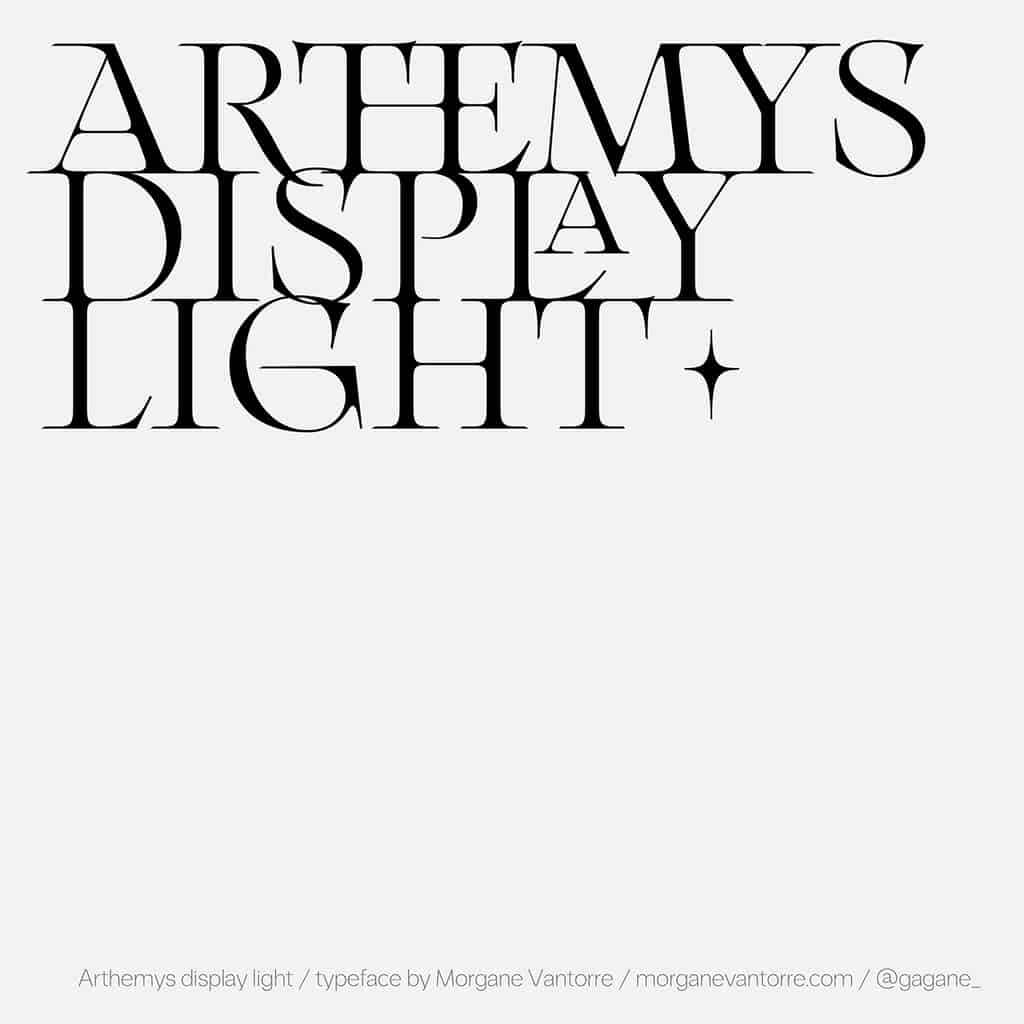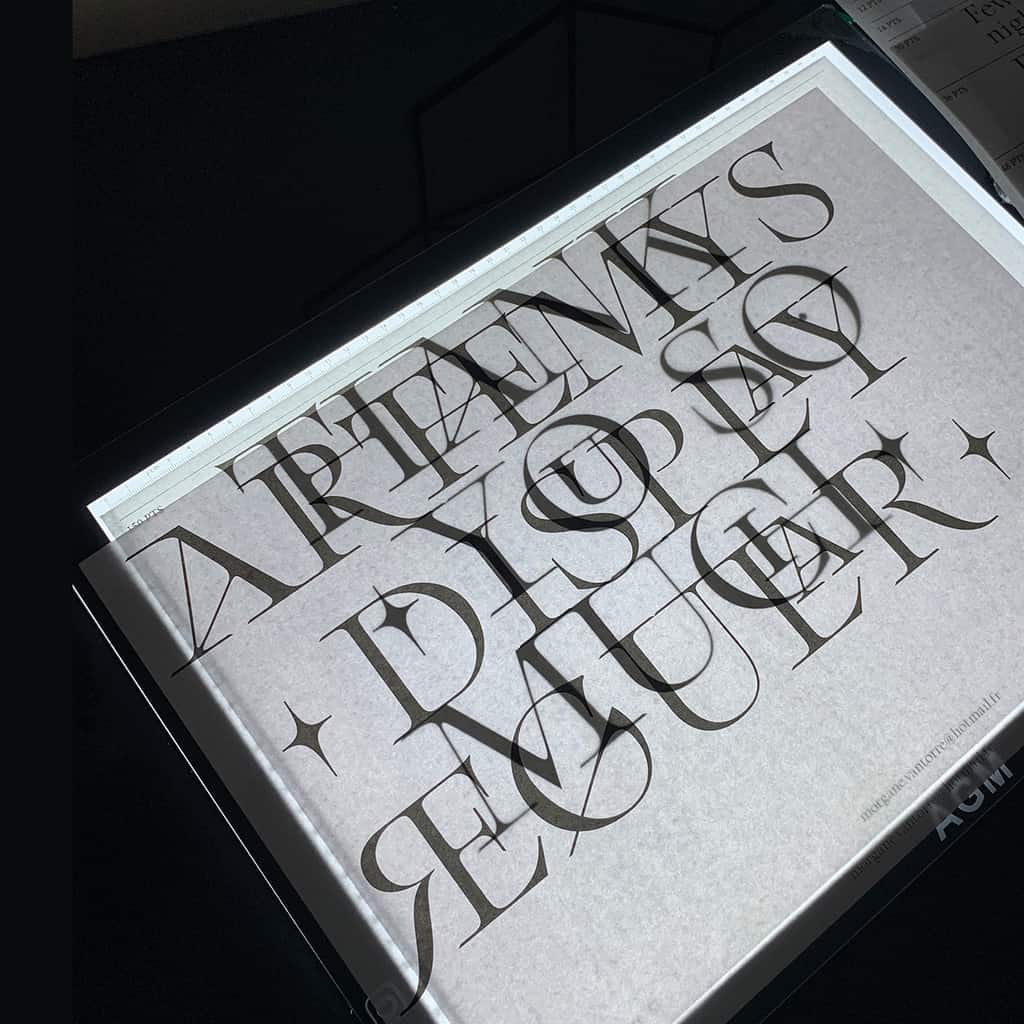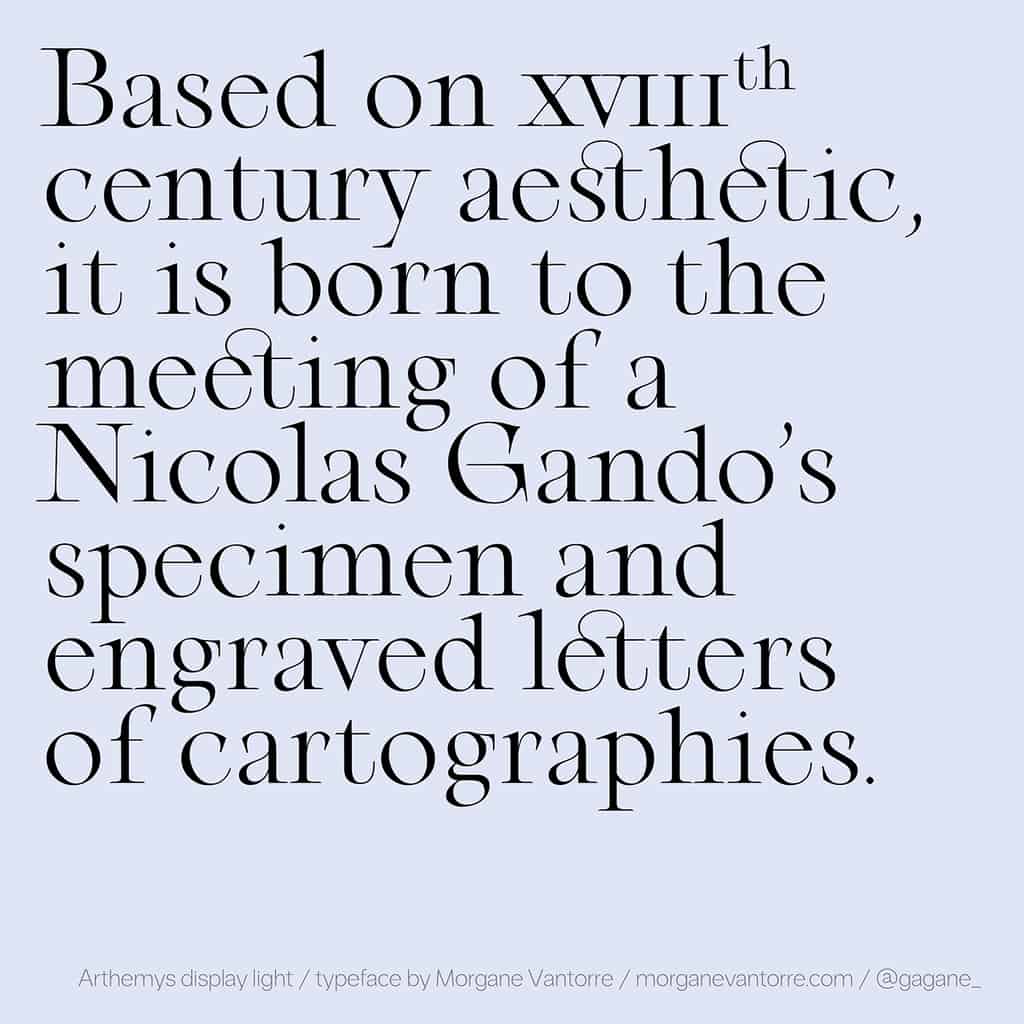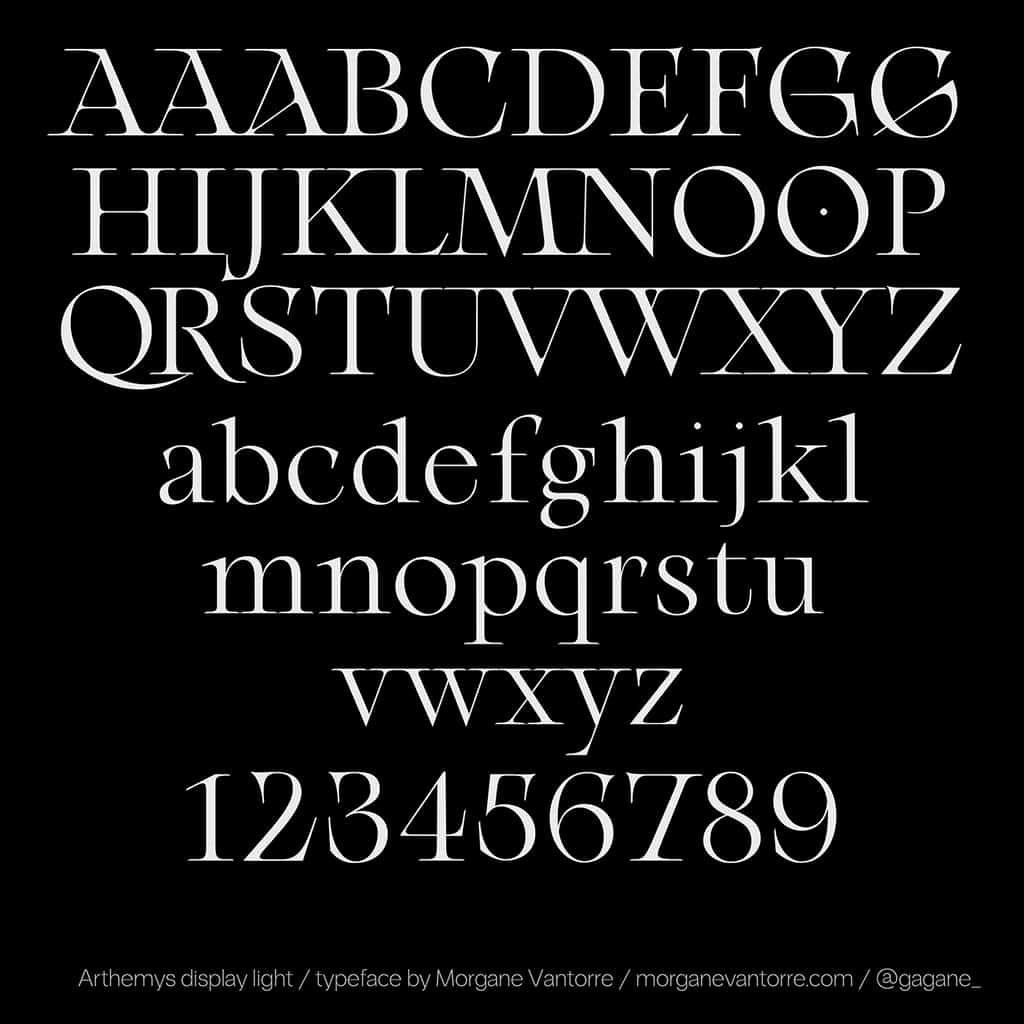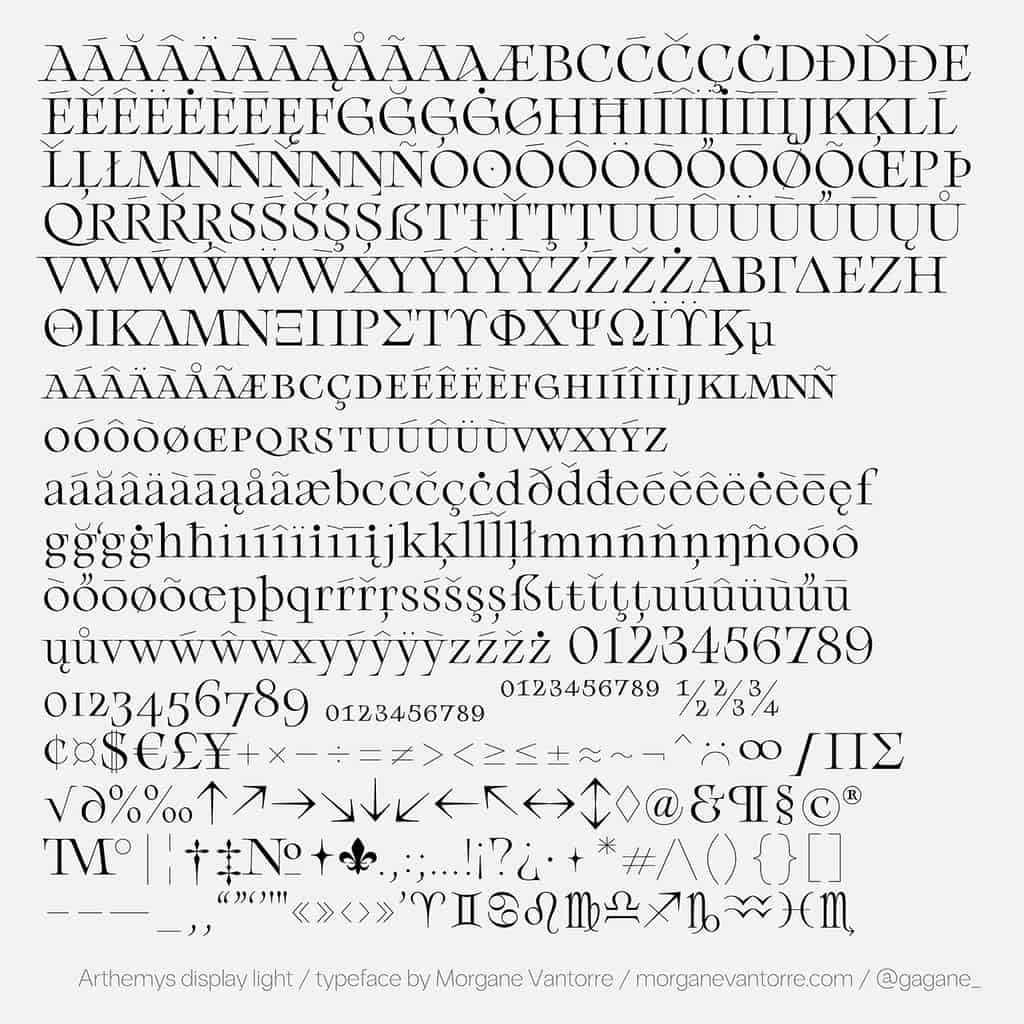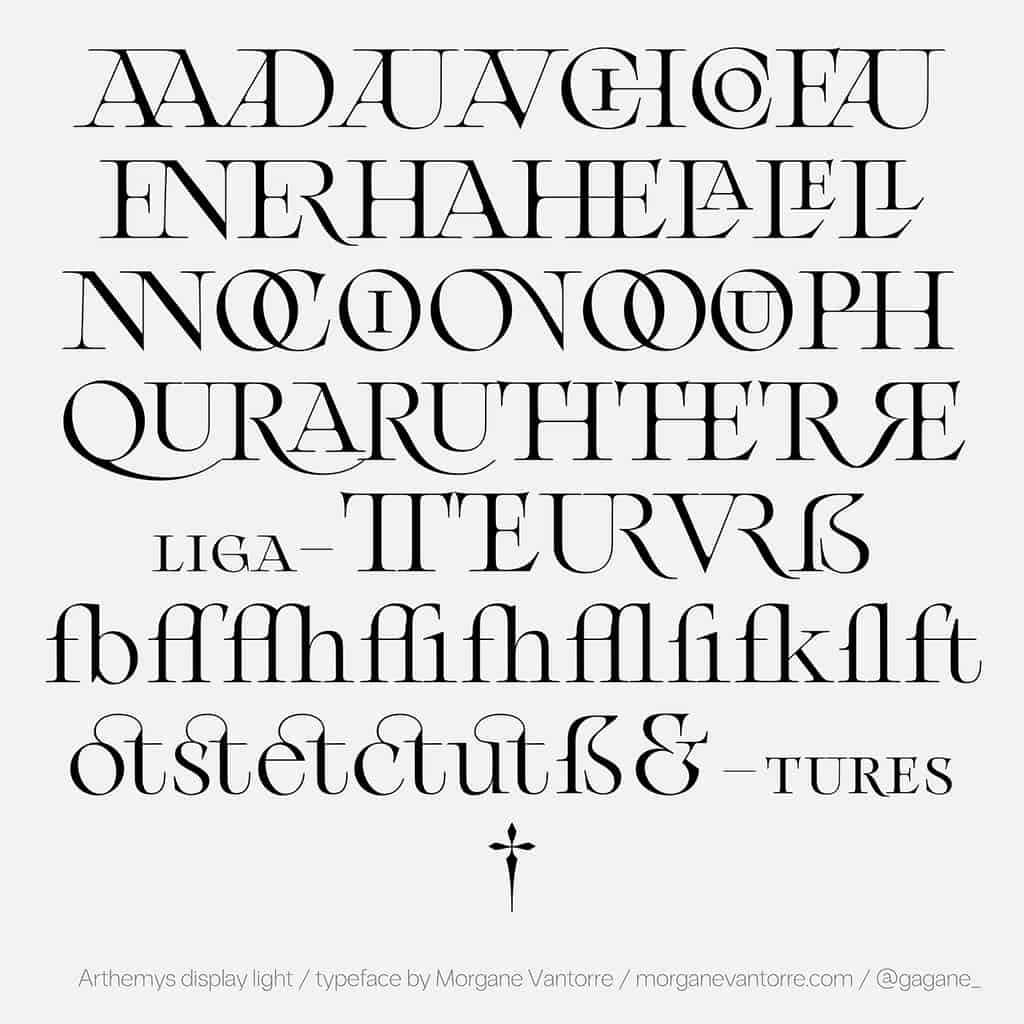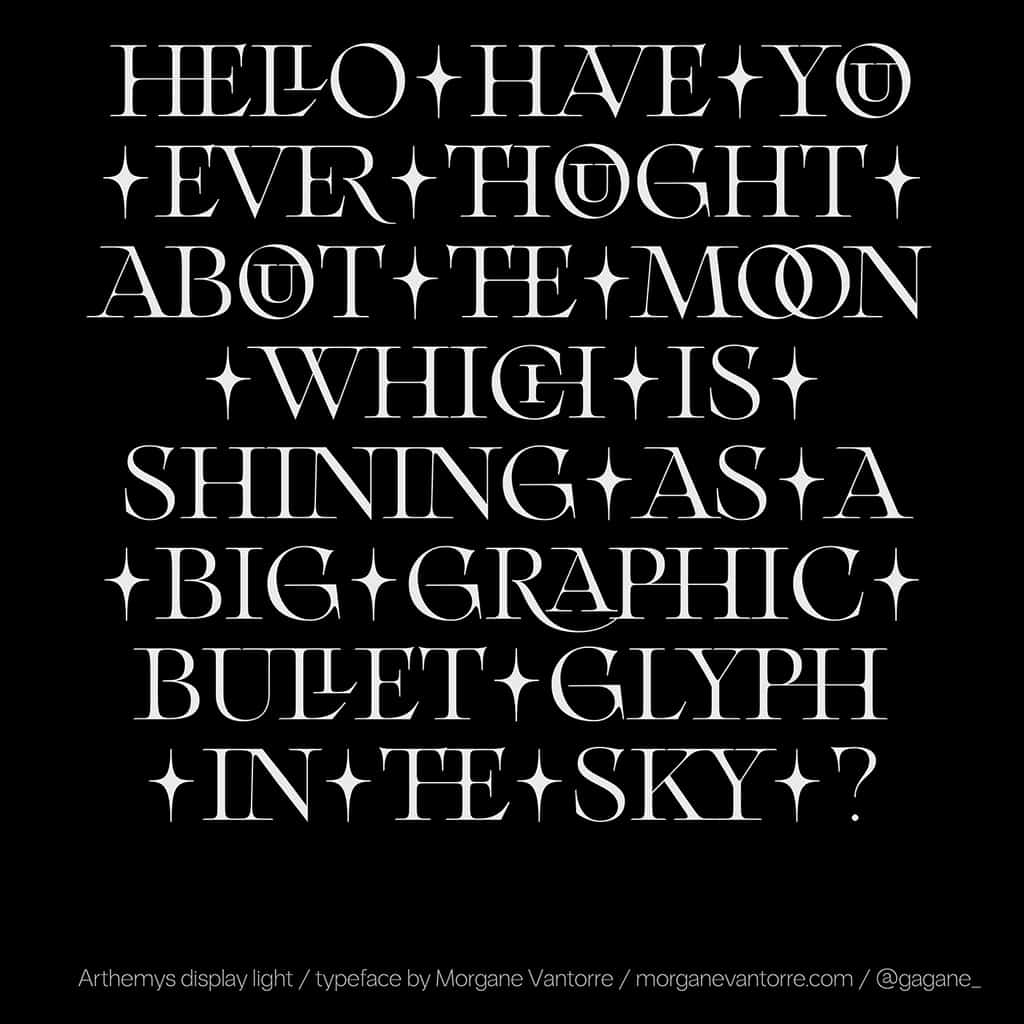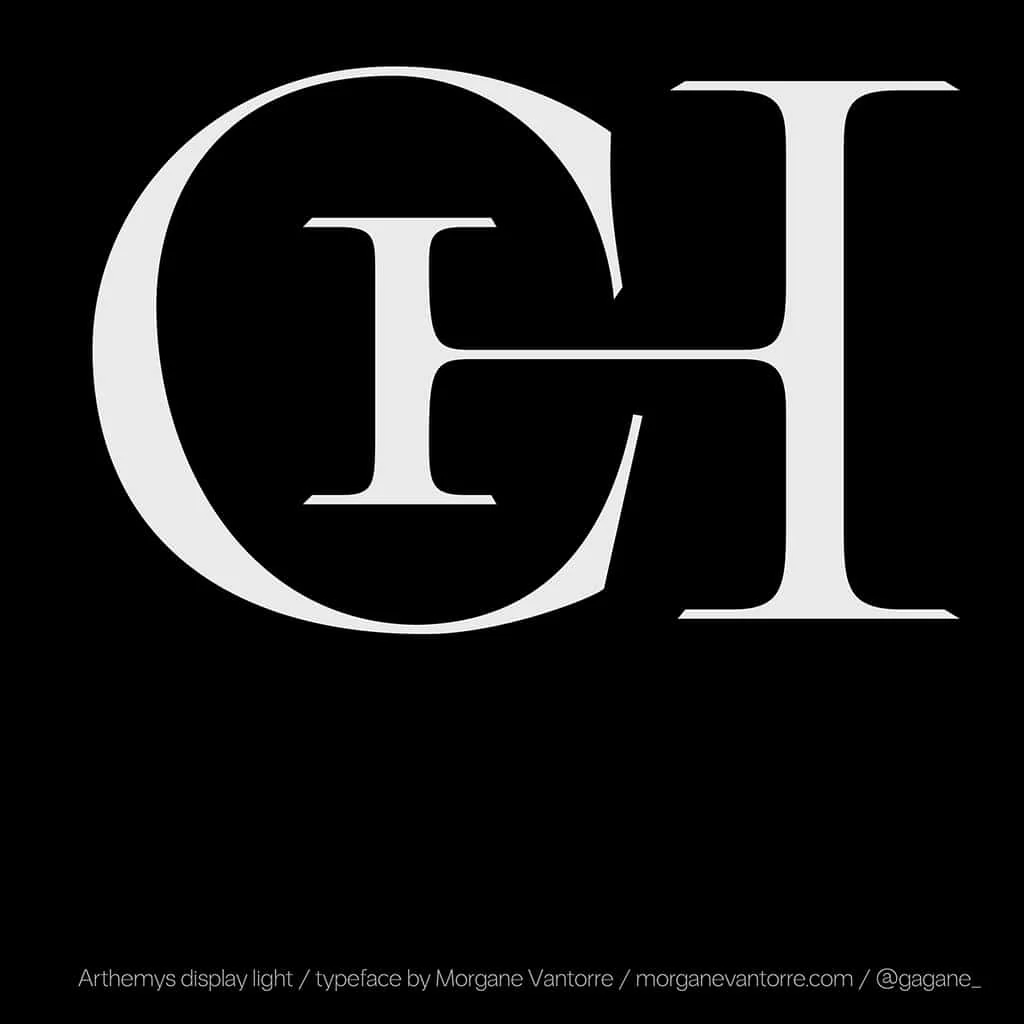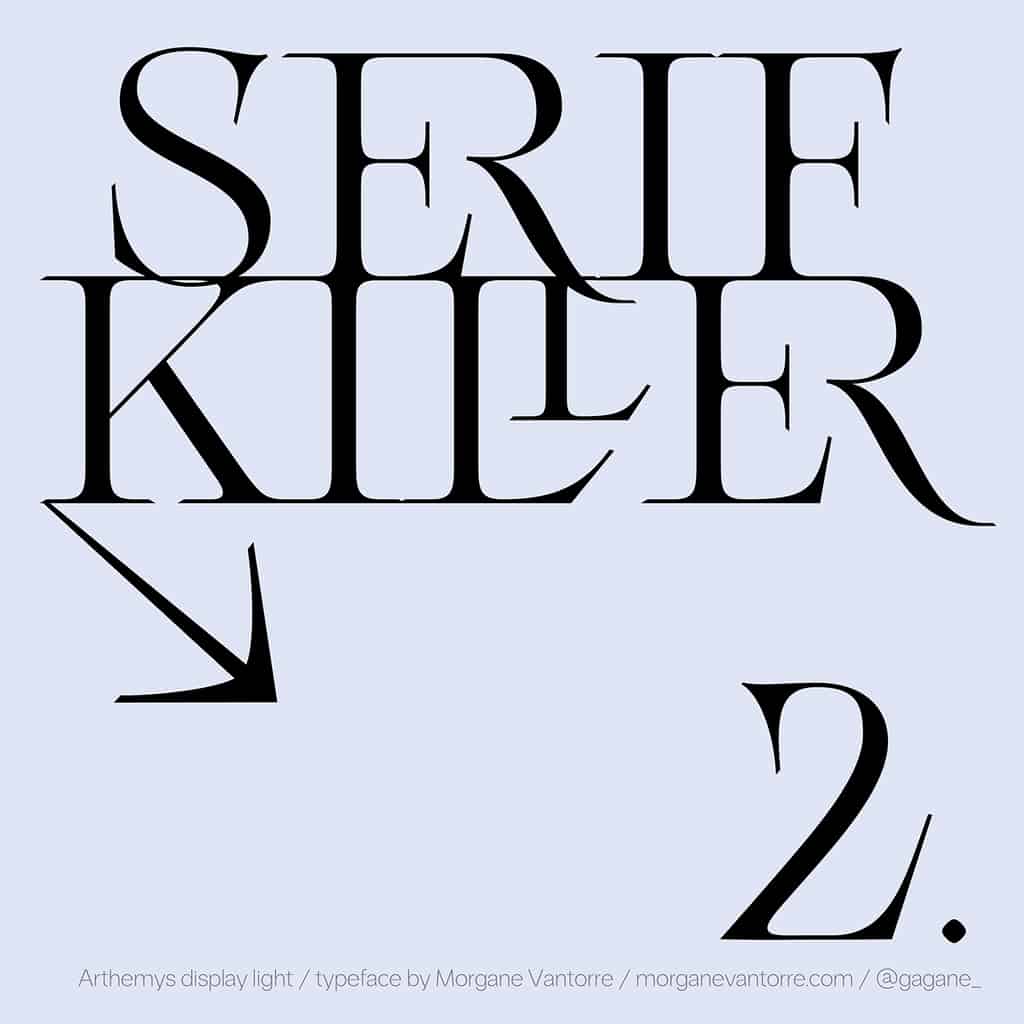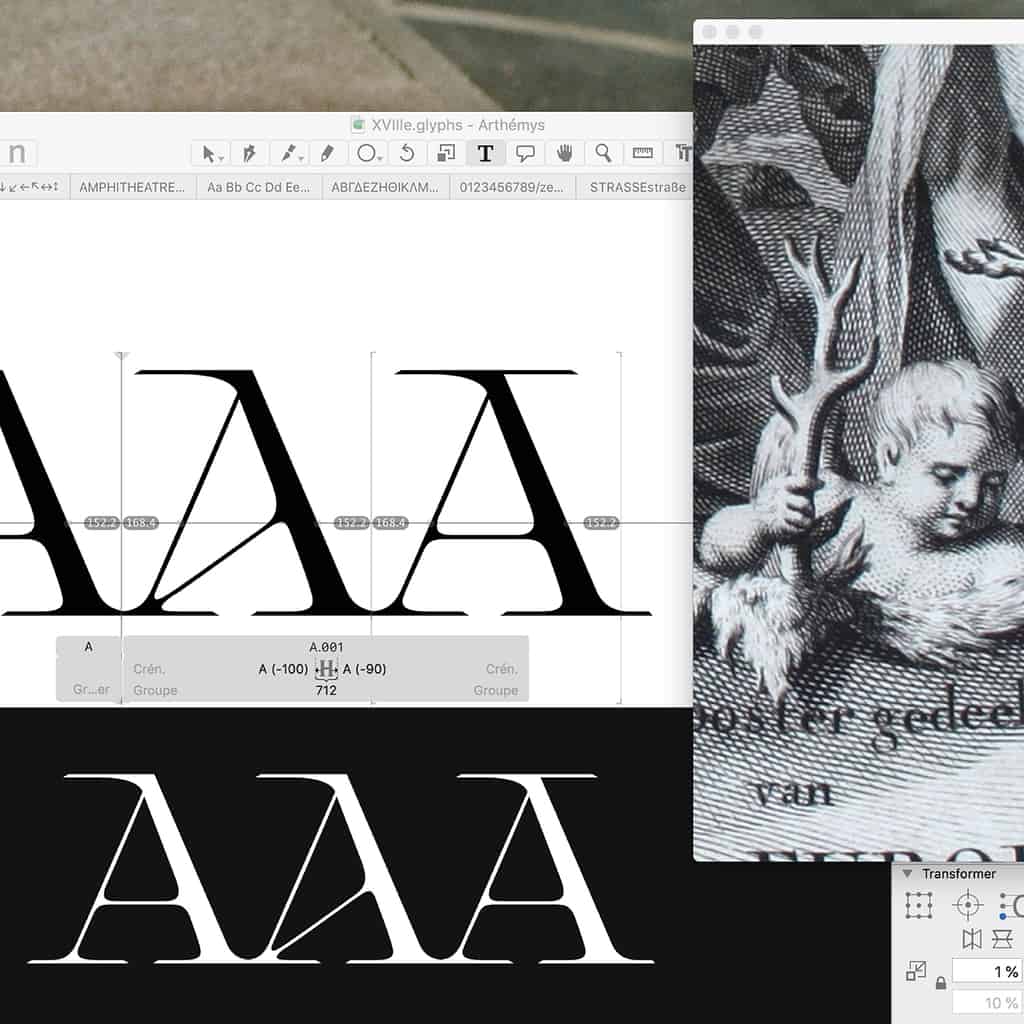
Arthemys Display Light
Arthemys is a meticulous and generous serif typeface, designed by the Paris based graphic & type designer Morgane Vantorre. Based on XVIIIth century aesthetic, it is born to the meeting of a Nicolas Gando’s specimen and engraved letters of cartographies.
Thought for display, this typeface underlines a singular union between shapes from past and a contemporary eye: a kind of fruitful revival highlighting the sensitivity of two eras. The graphic particularities of Arthemys enable any text to get both a delicate and majestic value. †
Arthemys is a meticulous and generous serif typeface, designed by the Paris based graphic & type designer Morgane Vantorre. Based on XVIIIth century aesthetic, it is born to the meeting of a Nicolas Gando’s specimen and engraved letters of cartographies.
Thought for display, this typeface underlines a singular union between shapes from past and a contemporary eye: a kind of fruitful revival highlighting the sensitivity of two eras. The graphic particularities of Arthemys enable any text to get both a delicate and majestic value. †